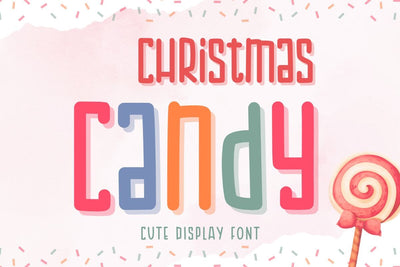
Christmas Candy - Cute Handwriting Font
Christmas Candy Font is thoughtfully crafted with attention to detail, ensuring a high-quality and visually appealing font that adds magic to your projects.